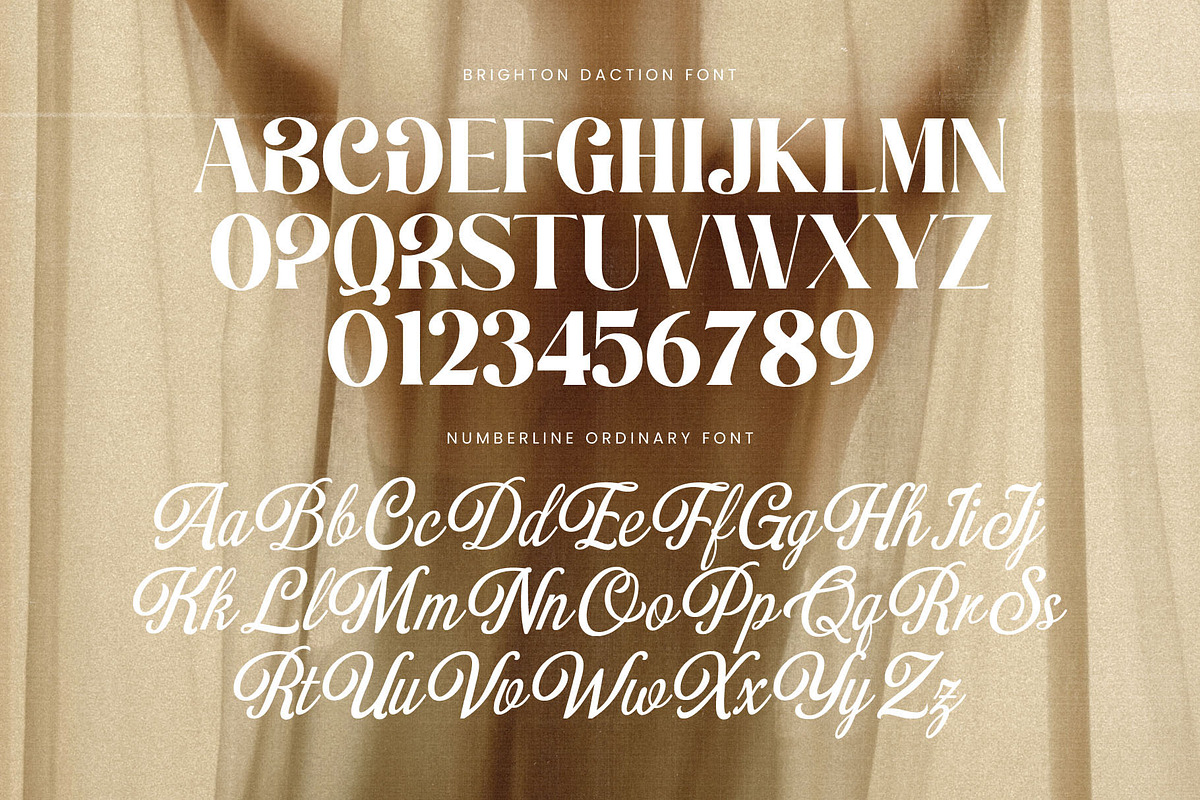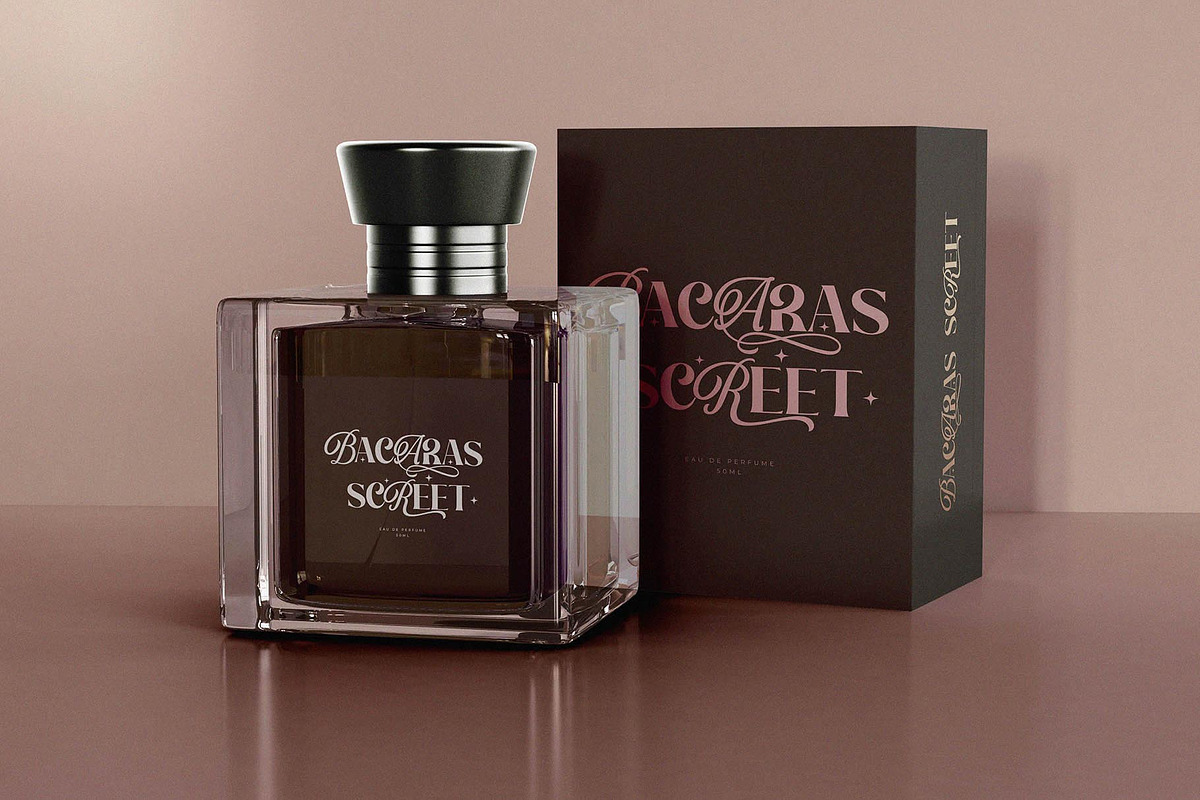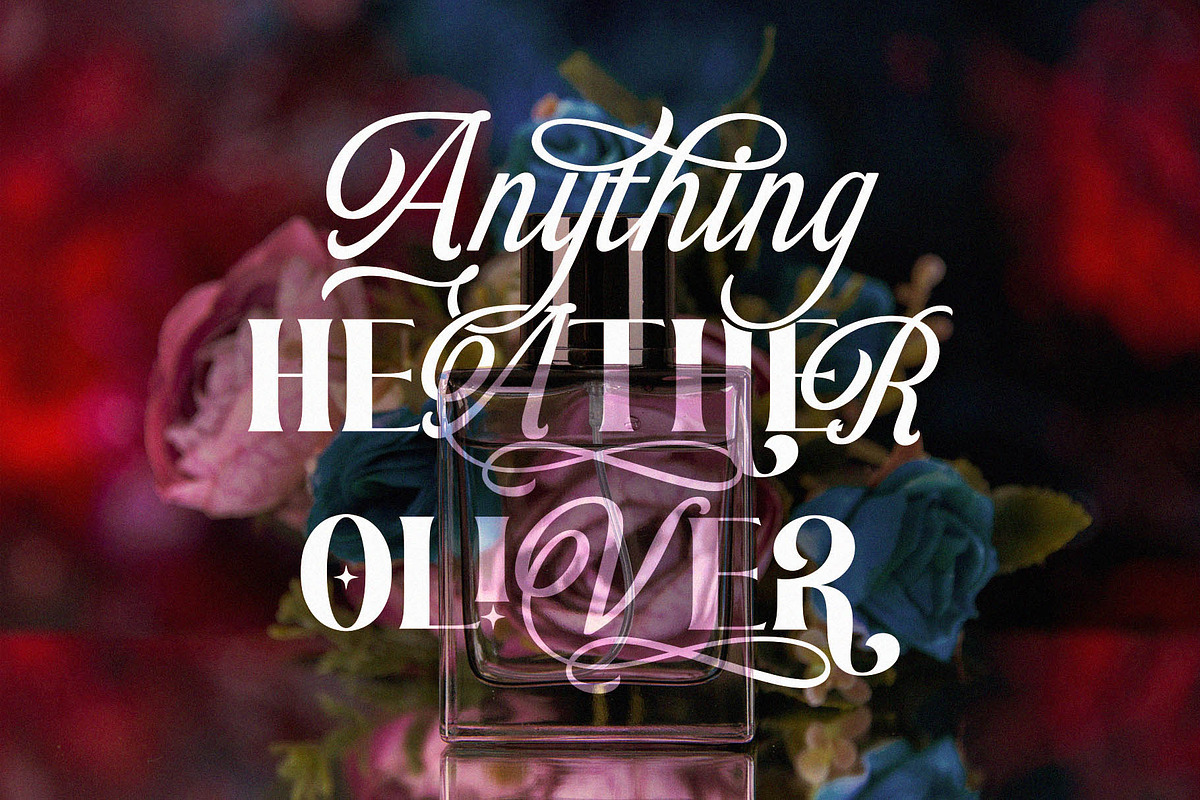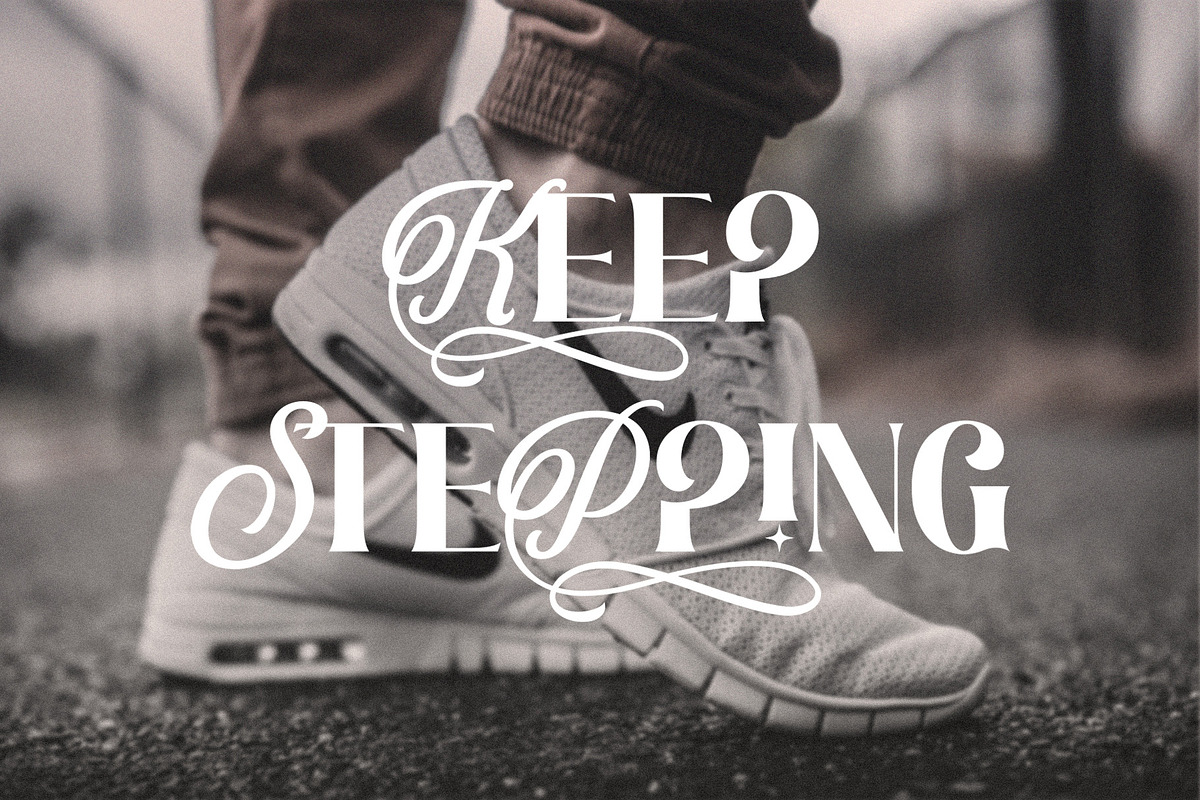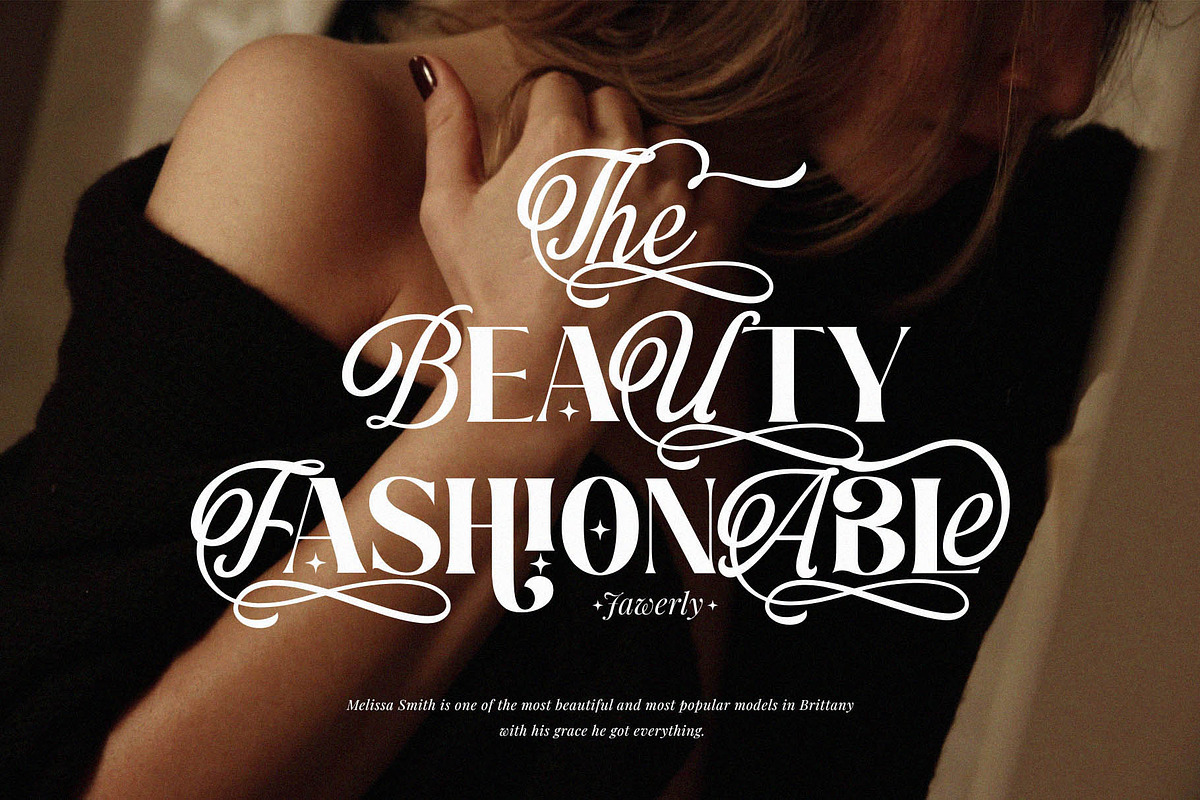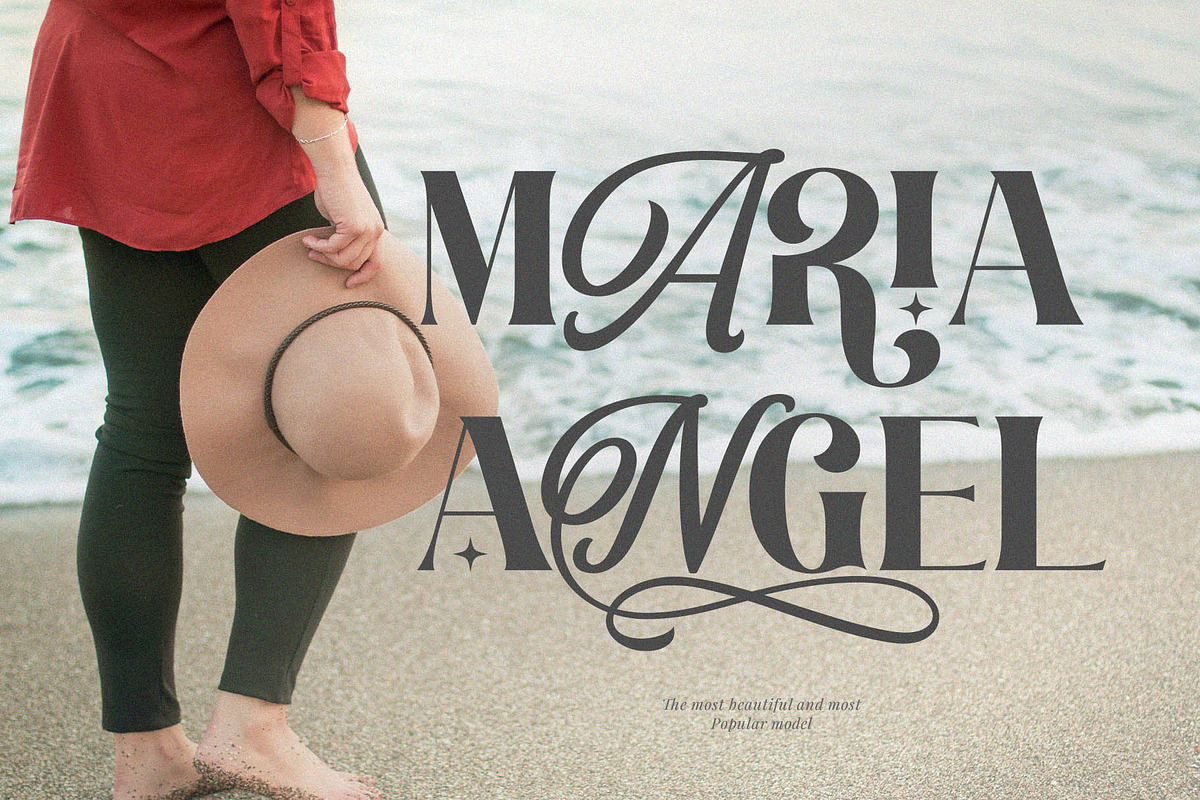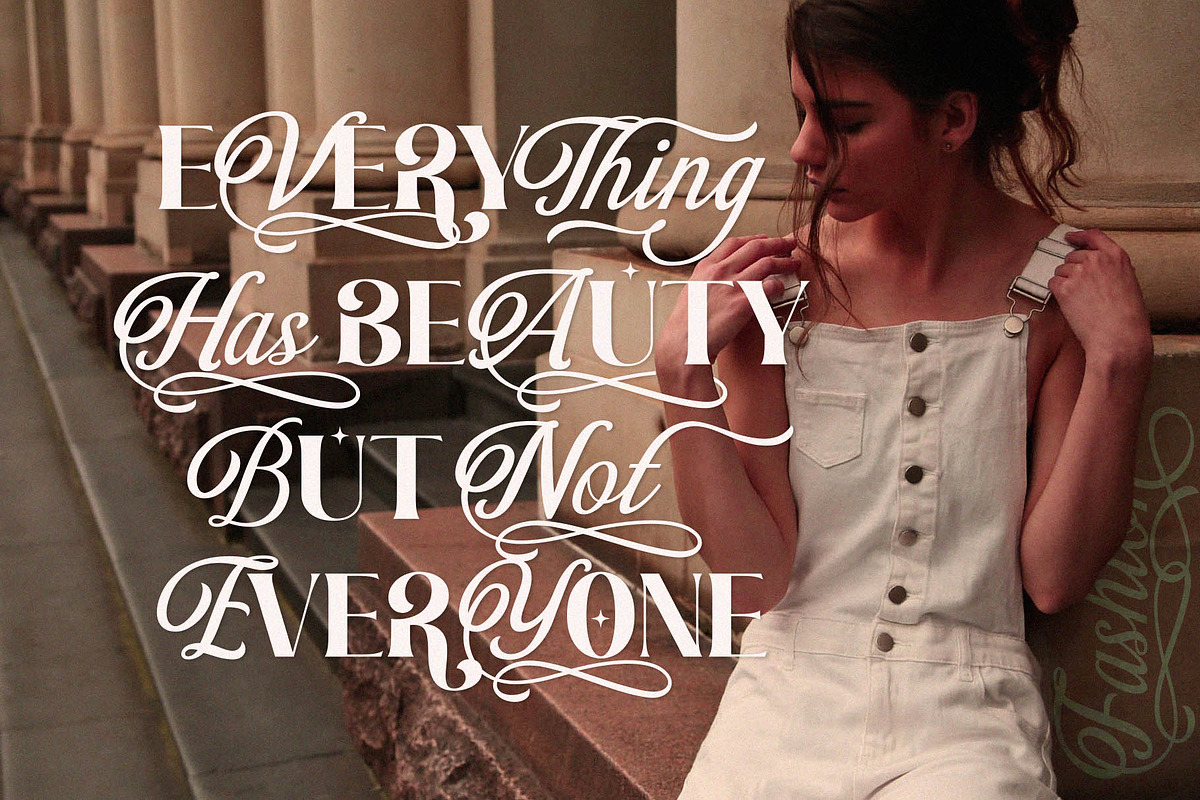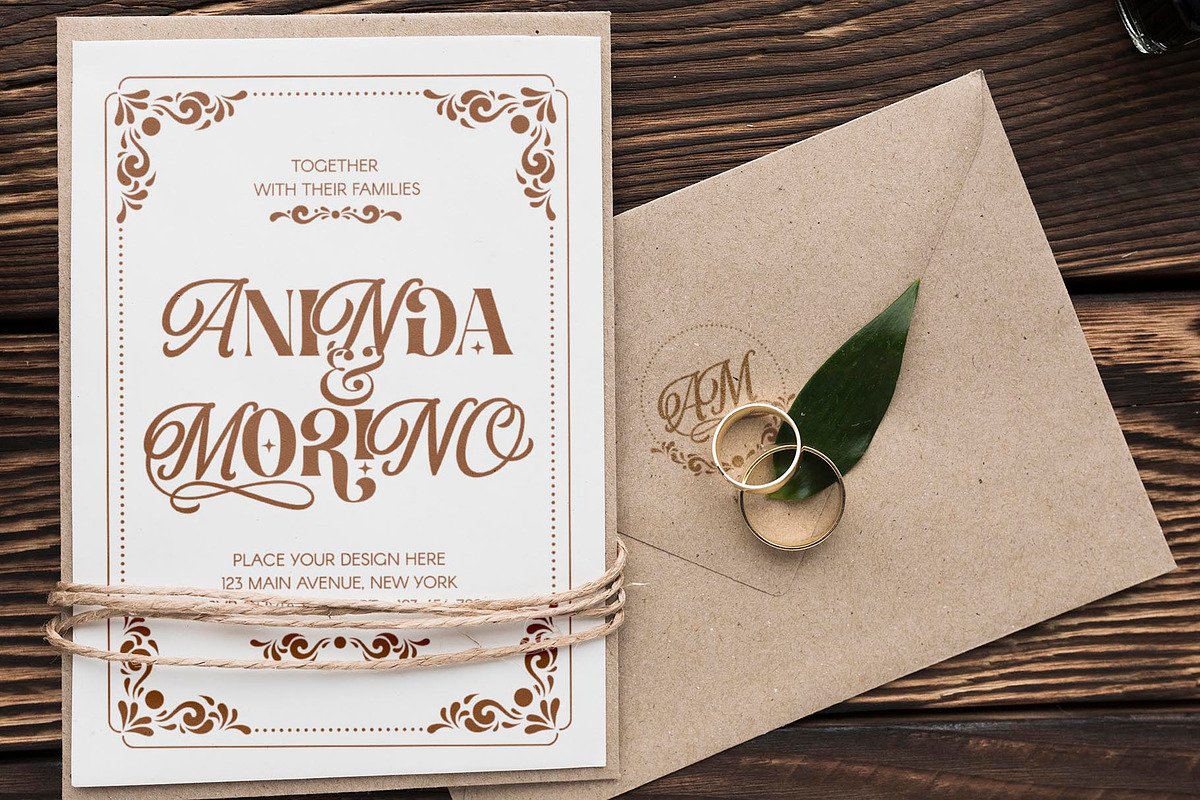
Brighton Daction Serif Font
Brighton Daction Serif Font inspired by the famous minimalist logo perfect for the purposes of designing templates, brochures, videos, advertising branding, logos, invitation, layout design, elegant crafting, beauty design and more.